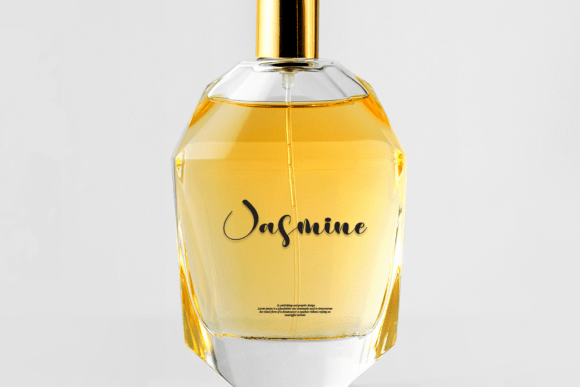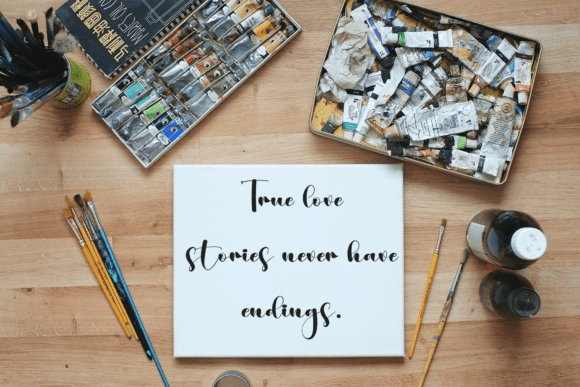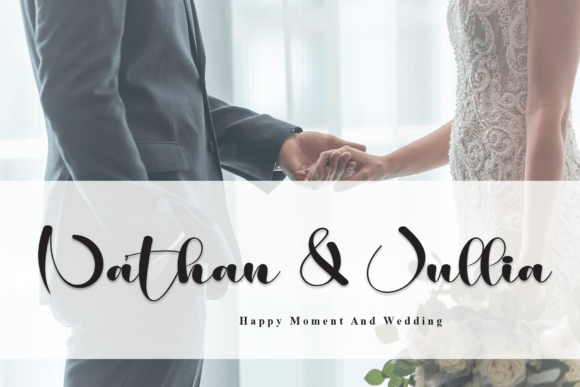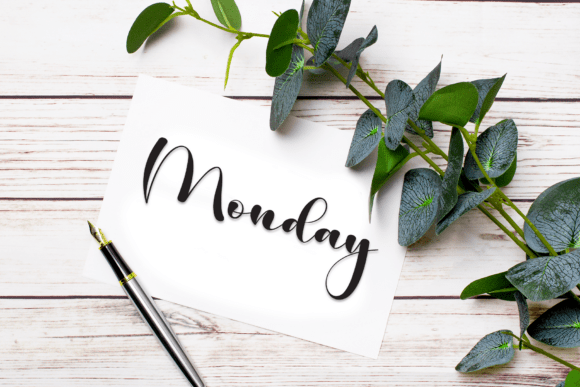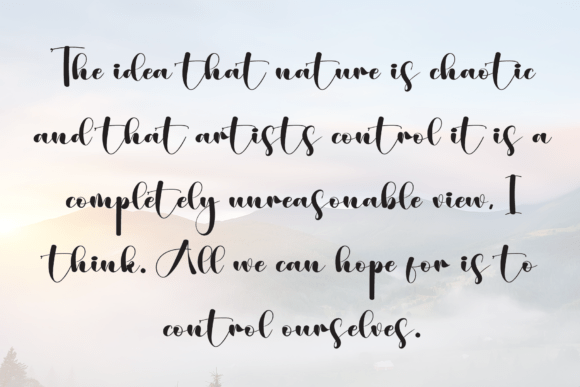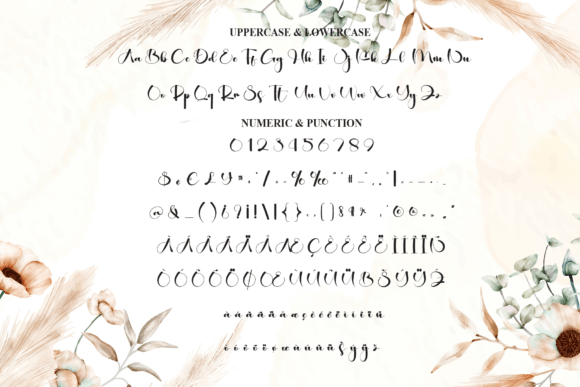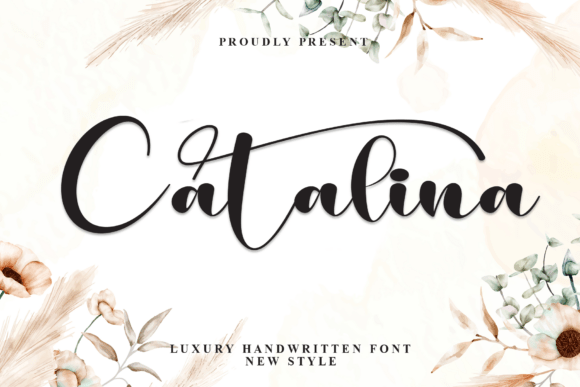
Introducing Catalina Font: Elevate Your Designs with Elegance and Creativity
Are you a designer, crafter, or DIY enthusiast looking for a unique and stylish font to take your projects to the next level? Look no further than Catalina Font, a beautifully crafted typeface designed to add a touch of elegance and sophistication to your creations. In this article, we’ll explore the features and benefits of Catalina Font, and how it can help you achieve extraordinary results in your designs.
Unleash Your Creativity with Catalina Font
Catalina Font is a versatile and creative typeface that is perfect for a wide range of applications, including wall displays, wedding invitations, social media post logos, advertisements, product packaging, product designs, labels, photography, watermarks, invitations, stationery, and any project that requires tasteful handwriting. With its unique and stylish lettering, Catalina Font is sure to make your designs stand out from the crowd.
Why Choose Catalina Font?
So why choose Catalina Font over other typefaces? Here are just a few reasons:
- Unique and stylish lettering: Catalina Font features a distinctive and elegant lettering style that’s perfect for designers and crafters who want to add a touch of sophistication to their projects.
- Versatility: With its wide range of applications, Catalina Font is an excellent choice for anyone who wants a font that can adapt to different design needs.
Catalina Font is an ideal choice for designers and crafters who want to add a personal touch to their projects. Whether you’re creating wedding invitations, social media graphics, or product packaging, this font is sure to impress. Here are just a few ways you can use Catalina Font:
- Wedding invitations: Add a touch of elegance and romance to your wedding invitations with Catalina Font.
- Social media graphics: Create stunning social media graphics, logos, and posts that will grab attention and drive engagement.
- Product packaging: Elevate your product packaging with a stylish and sophisticated font that reflects your brand’s personality.
- Stationery: Create beautiful stationery, including letterheads, business cards, and thank-you cards.
In conclusion, Catalina Font is an exceptional typeface that offers a unique and stylish lettering style, versatility, and ease of use. Whether you’re a designer, crafter, or DIY enthusiast, this font is perfect for anyone who wants to add a touch of elegance and sophistication to their projects. With its comprehensive file package, long-term support, and compatibility with popular design software, Catalina Font is an excellent choice for anyone looking to take their designs to the next level.